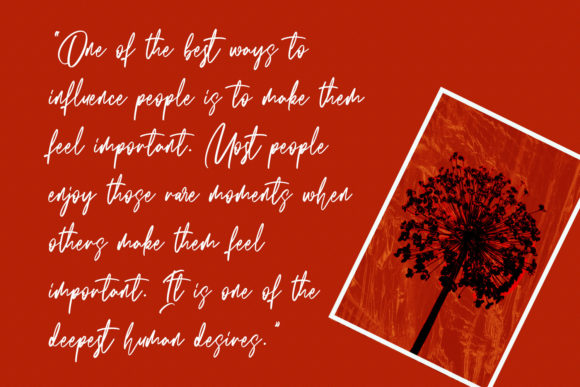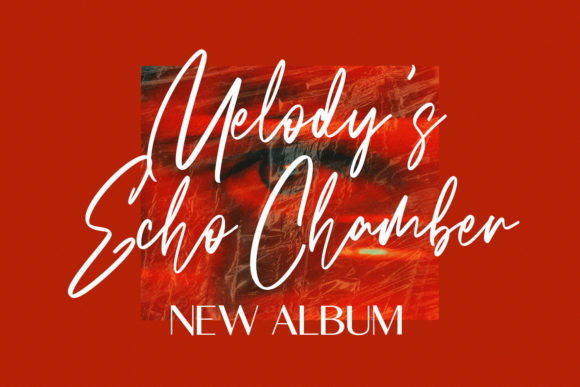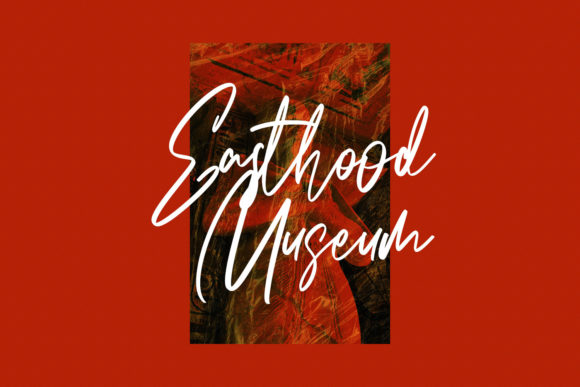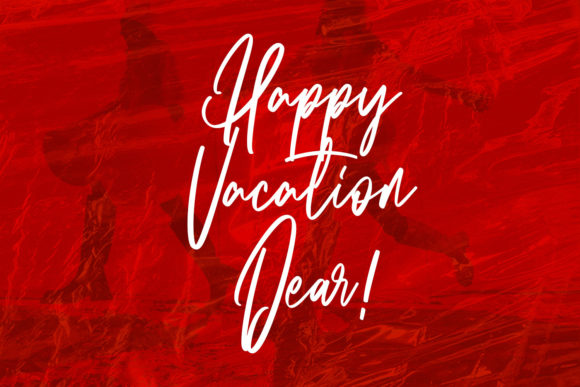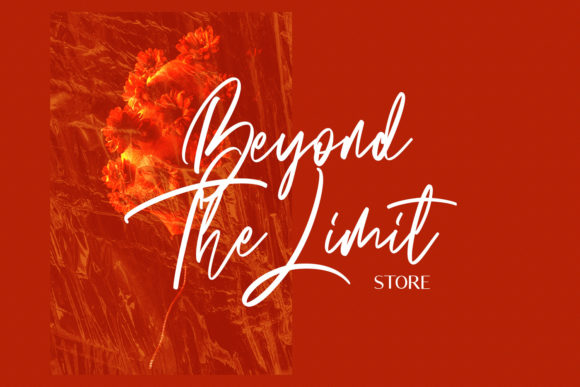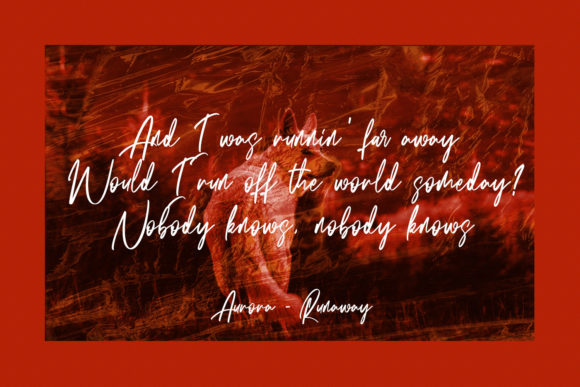
Introduction to Marriast Script Font
Marriast is a slanted casual modern script font.
With high contrast stroke, fun character with a bit of ligature and alternates to give you extra creative work This font is great for logo design, Social media, Movie Titles, Books Titles, short text even long text.